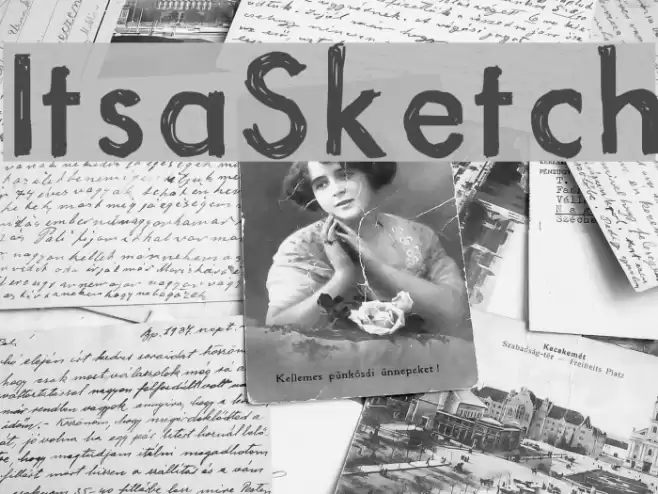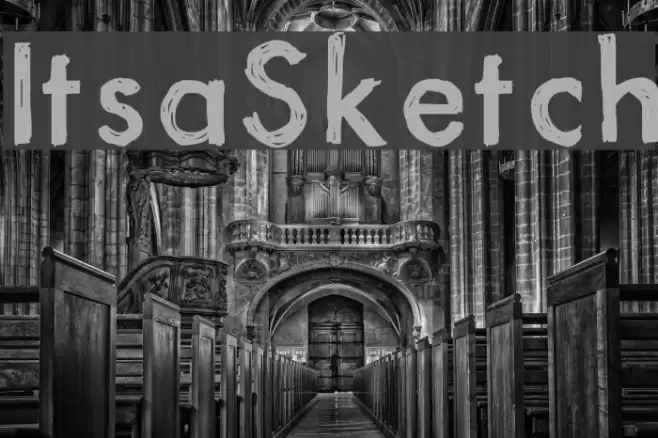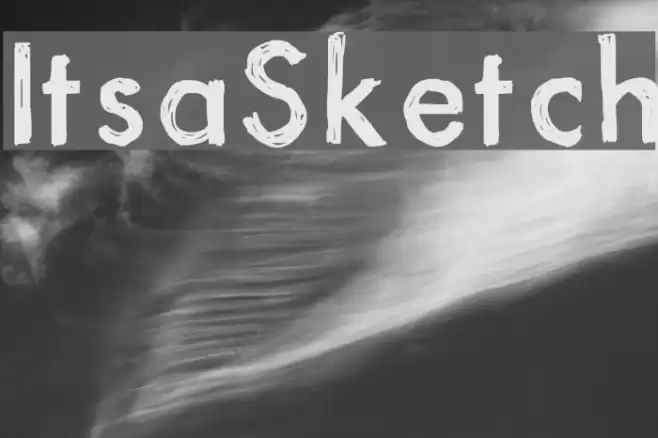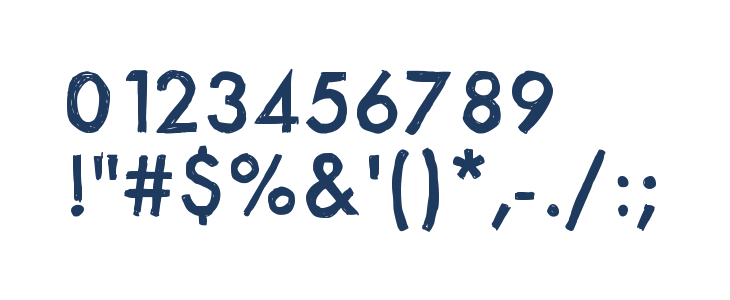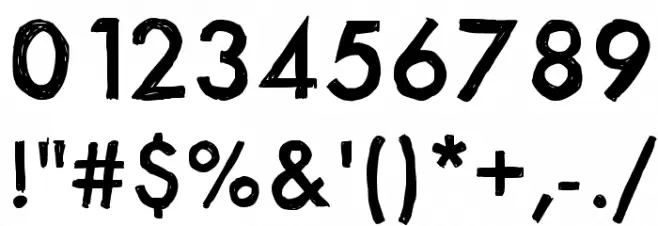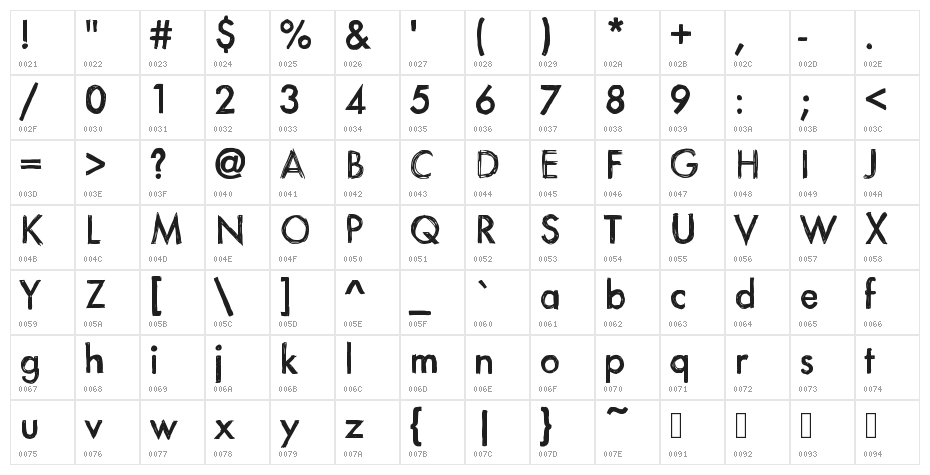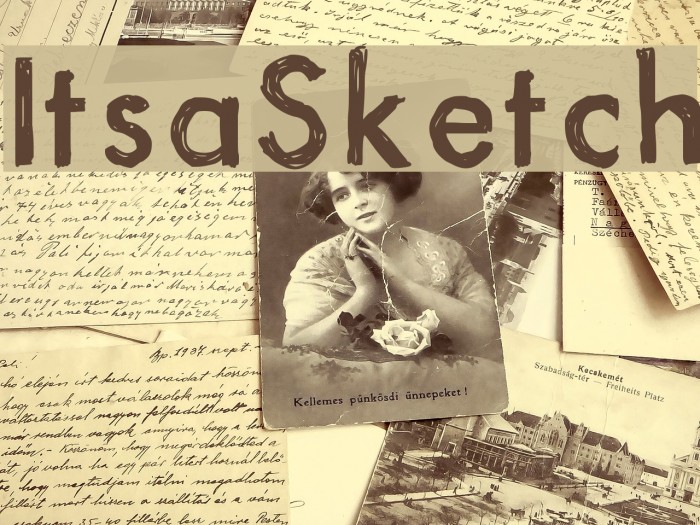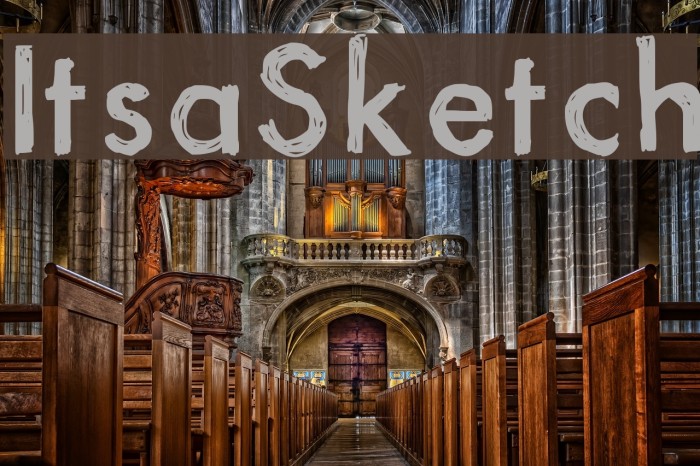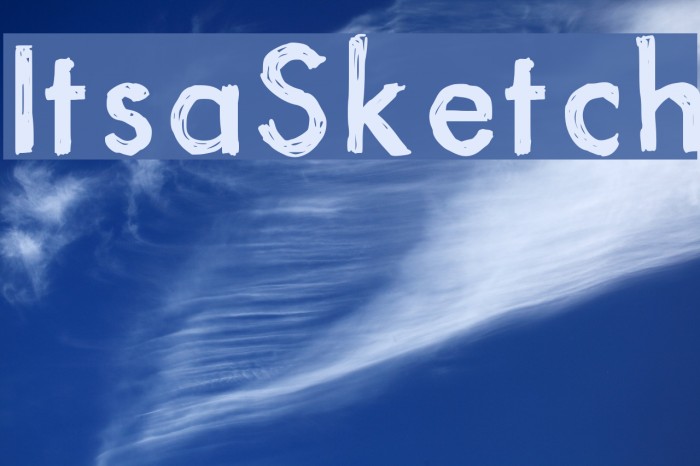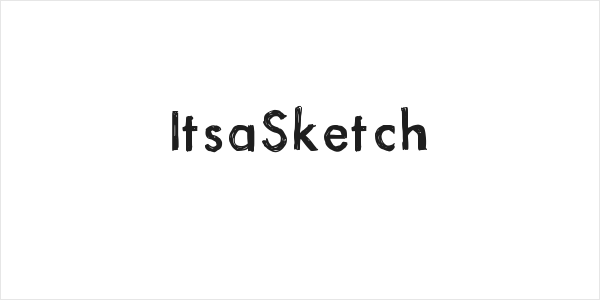
ItsaSketch Font
ItsaSketch Description
This font features a playful, hand-drawn style with a sketch-like appearance. The characters are bold and slightly irregular, giving them a casual and artistic feel. The uppercase and lowercase letters maintain a consistent style, with rounded edges and varying line thickness that adds to the hand-crafted look. Numbers and special characters follow the same aesthetic, ensuring a cohesive appearance across all text elements. The font's unique style makes it stand out, ideal for projects that require a creative and informal touch.
A playful, hand-drawn font with a sketch-like, artistic appearance from Uncategorized fonts.
- Proposed Projects: Ideal for creative projects such as children's books, artistic posters, casual branding, and DIY crafts.